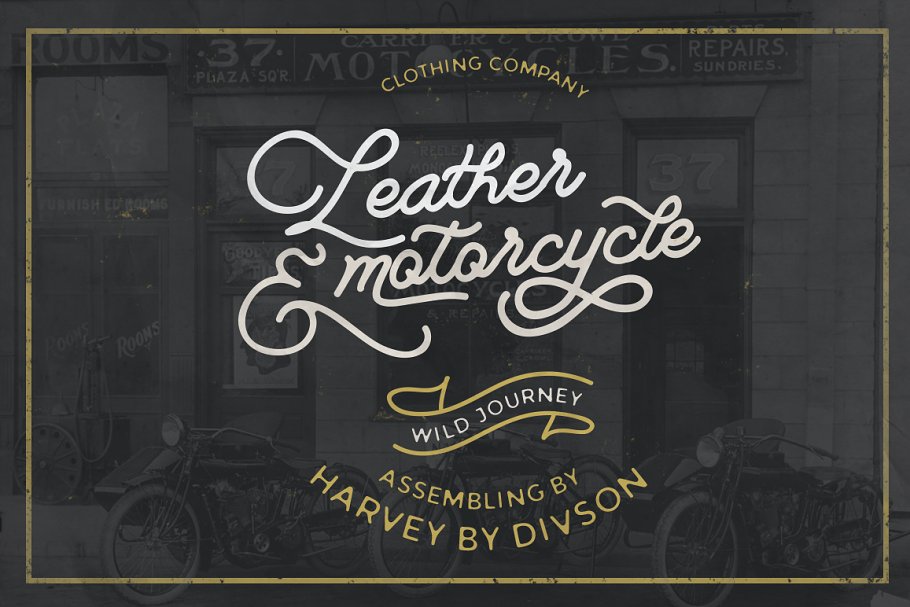
Welcome to Campground Monoline - the perfect font collection for all your script needs! Created by the talented Ramandhani Nugraha, these fonts are inspired by nature, adventure, and vintage typefaces, adding an irresistible charm to any project.
Campground Monoline offers a delightful combination of script and sans styles, giving you the best of both worlds. Whether you're designing a logo, clothing brand, vintage-inspired artwork, or even a wedding invitation, these fonts will elevate your creations to new heights.
With Campground Monoline, you'll have access to two stunning fonts that are sure to captivate your audience. The first font, Campground, features uppercase and lowercase letters, numerals, punctuation, and symbols, ensuring you have everything you need to bring your ideas to life. But it doesn't stop there! Campground also includes stylistic alternates and a range of special characters from SS01 to SS05, allowing you to add unique touches to your designs. And to top it off, ligatures are also available, enhancing the flow and aesthetic appeal of your typography.
The second font in this collection is Camp Press. With its regular style and simple ligatures, Camp Press adds a touch of elegance and sophistication to any project. Whether you're creating a vintage-inspired logo or designing a poster, this font will make your text stand out with its refined look.